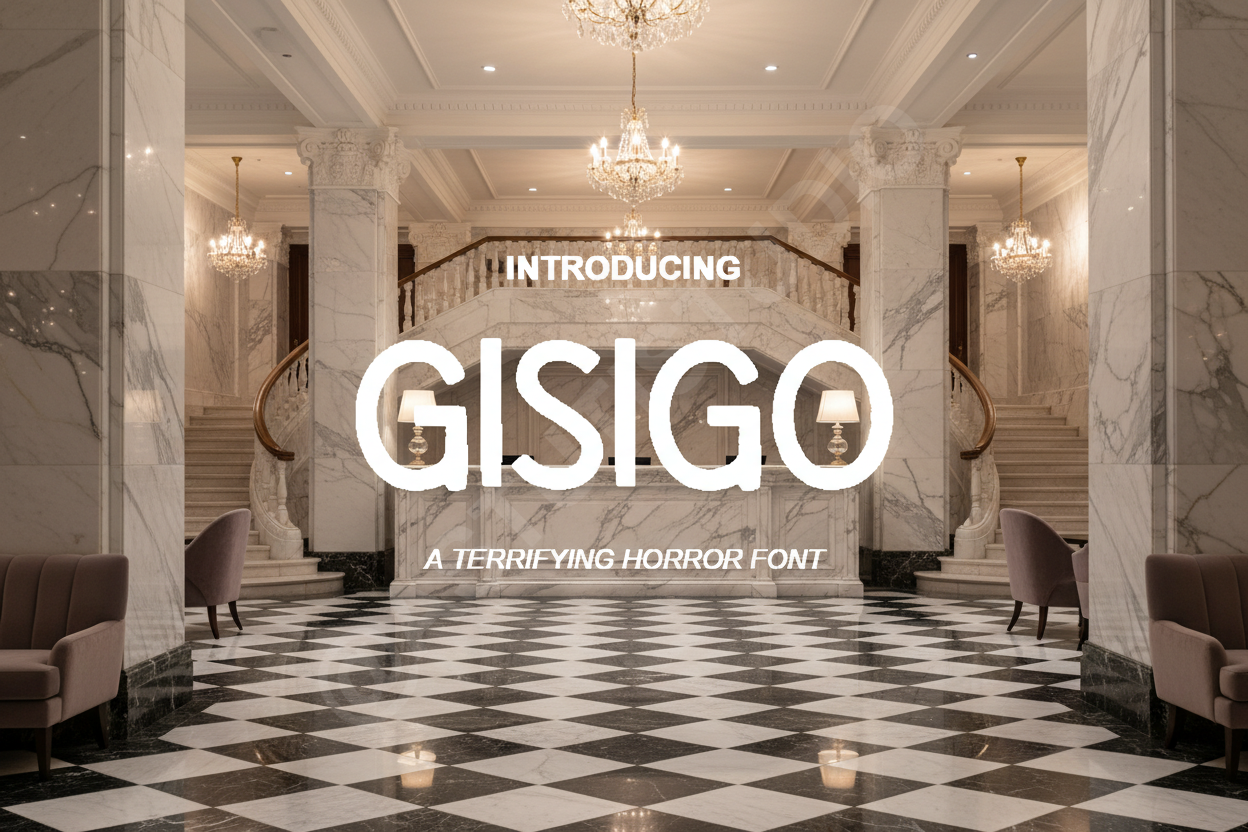
Gisigo - Elegant Serif Font for Luxu
Introduction: Unveil sophistication with Gisigo, a meticulously crafted serif font designed for the discerning creator. Gisigo embodies timeless elegance and modern refinement, making it the quintessential choice for projects demanding a touch of luxury. Its graceful curves and precise lines convey a premium aesthetic, perfect for elevating any design from concept to masterpiece.
Crafted for impact, Gisigo is an ideal companion for luxury branding, high-end editorial layouts, impactful social media campaigns, and elegant invitations. Allow Gisigo to transform your visions into captivating visual experiences.
- Elegant Serif Design: A classic yet contemporary aesthetic that commands attention.
- Full Character Set: Includes uppercase, lowercase, numbers, and comprehensive punctuation.
- Multilingual Support: Extended character sets for broad linguistic accessibility.
- Ligatures & Alternates: Enhancing typographic fluidity and offering stylistic variations.
- Optimized for Readability: Designed for clarity in both display and body text applications.